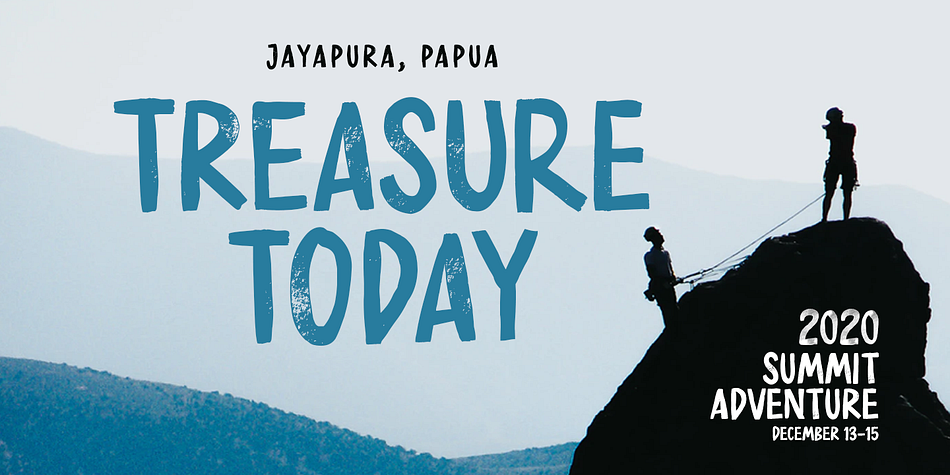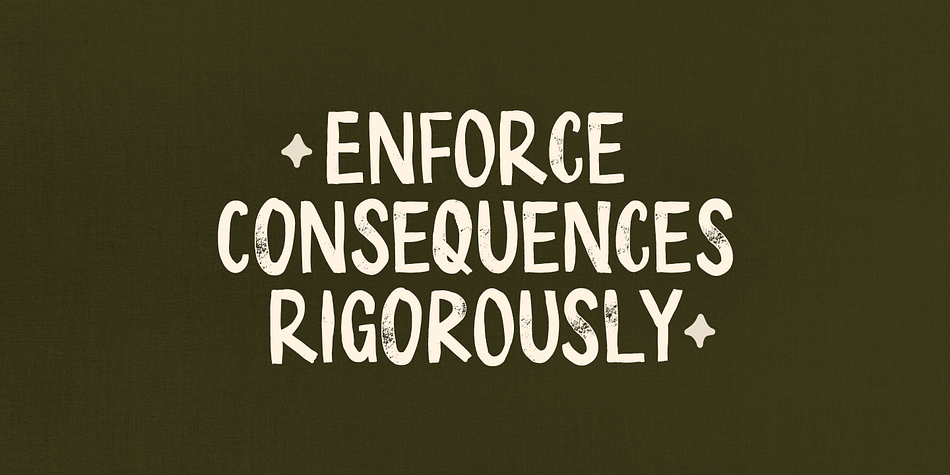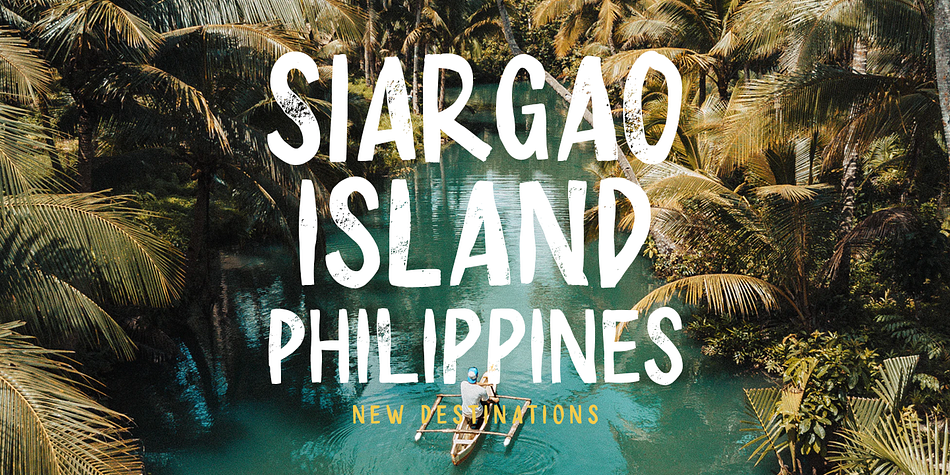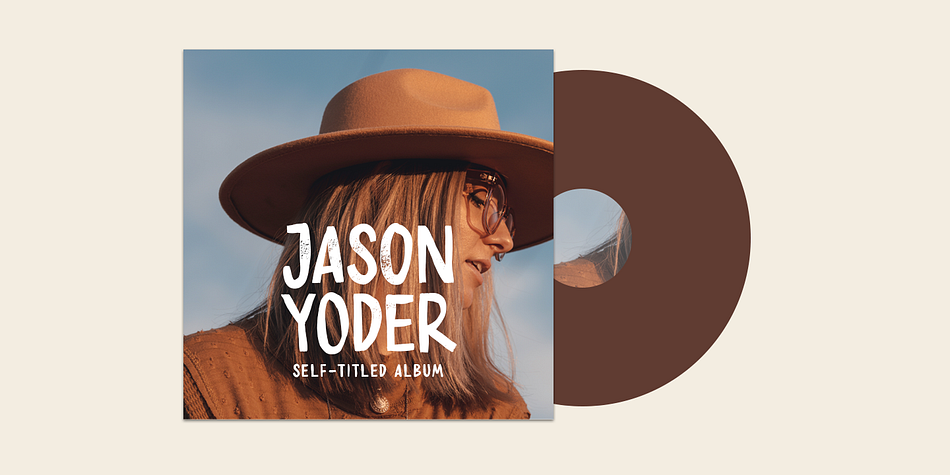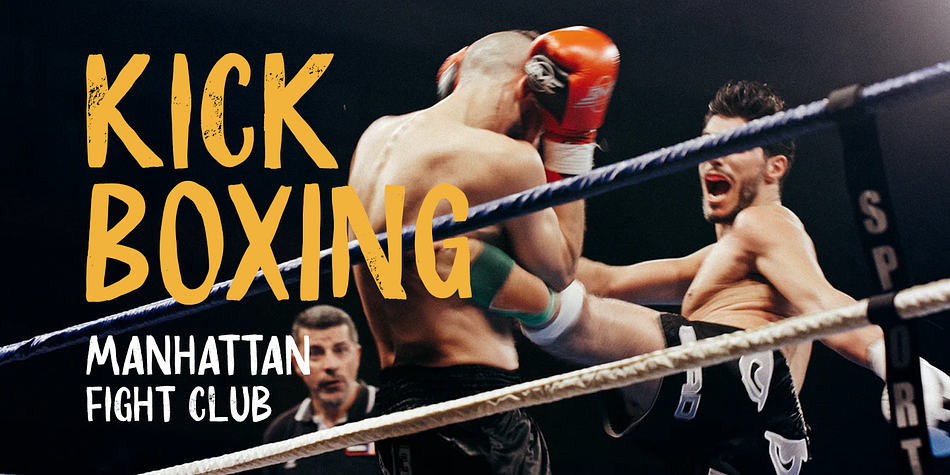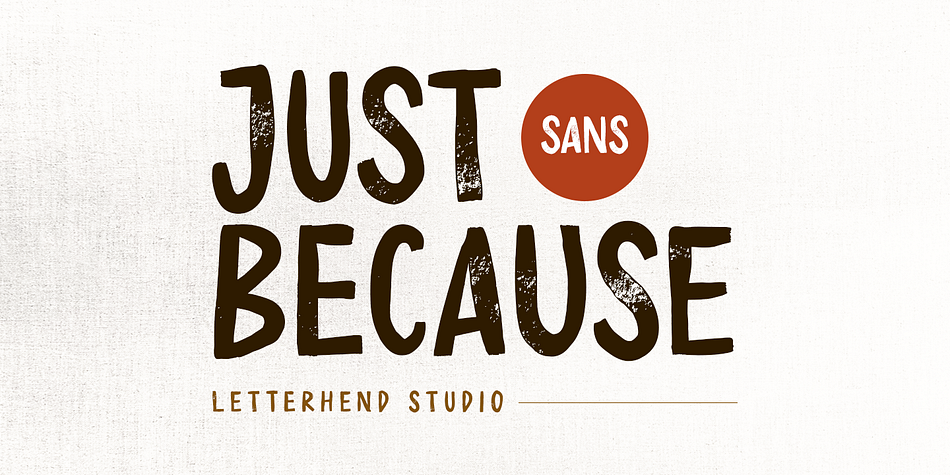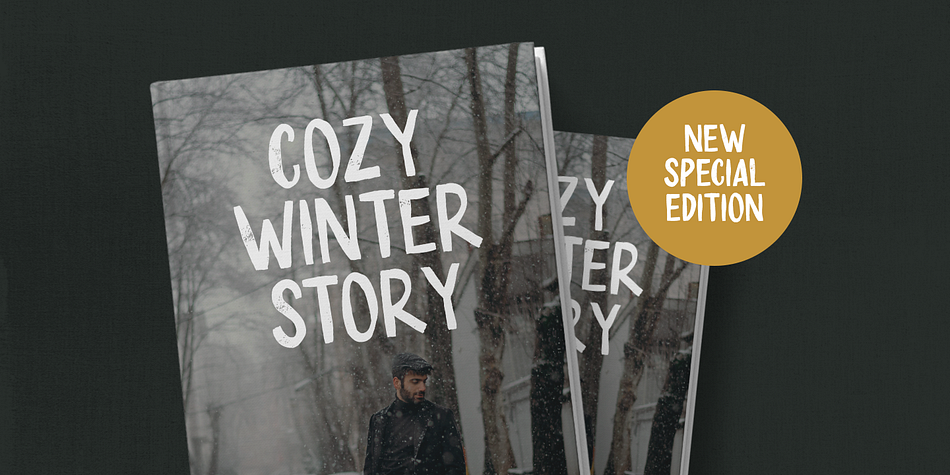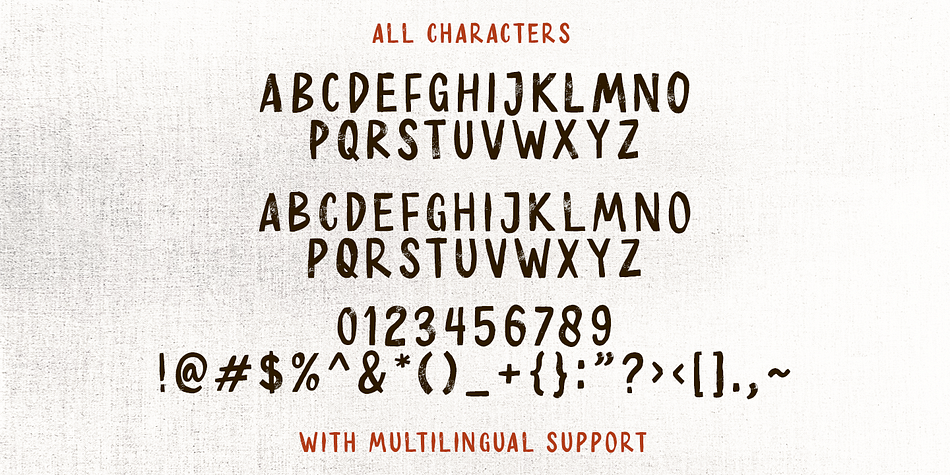
Designed by Hendry Juanda, Just Because is a hand display font published by Letterhend Studio.
Introducing, Just Because - a Sans Serif typeface. This type of font perfectly made to be applied especially in headlines which is need a standout font, and the other various formal forms such as invitations, labels, logos, magazines, books, greeting / wedding cards, packaging, fashion, make up, stationery, novels, labels or any type of advertising purpose.